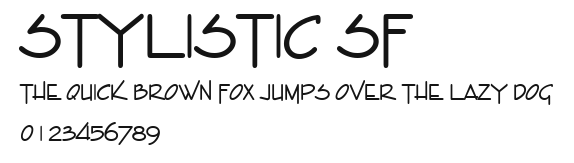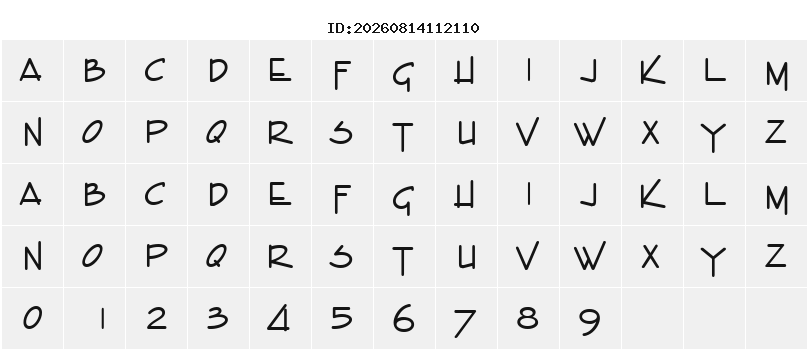
• Font Name: Stylistic SF
• Full Font Name: Stylistic SF Bold
• PostScript Name: StylisticSF-Bold
About Stylistic SF.ttf
Stylistic SF.ttf is a modern, elegant sans-serif font designed for ultimate readability and visual harmony. Perfect for branding, headlines, web design, and print materials.